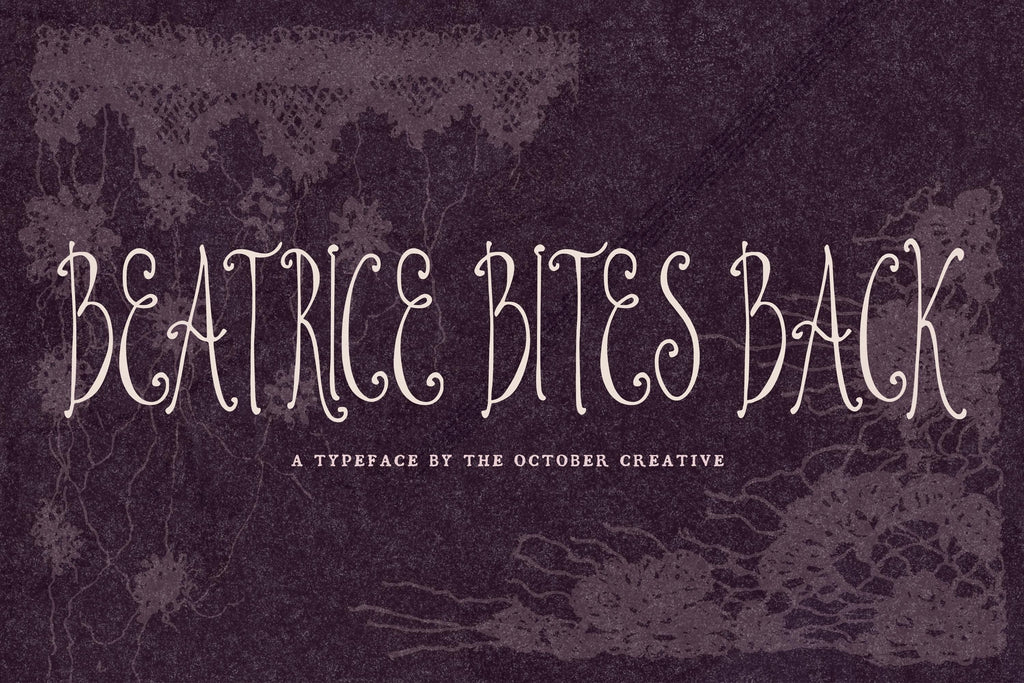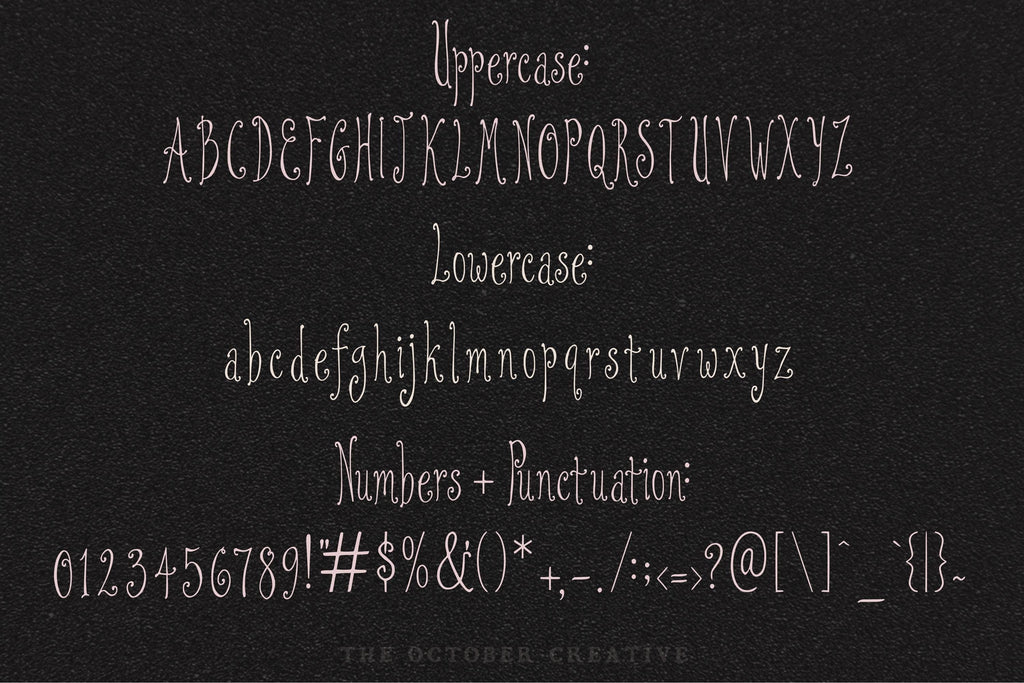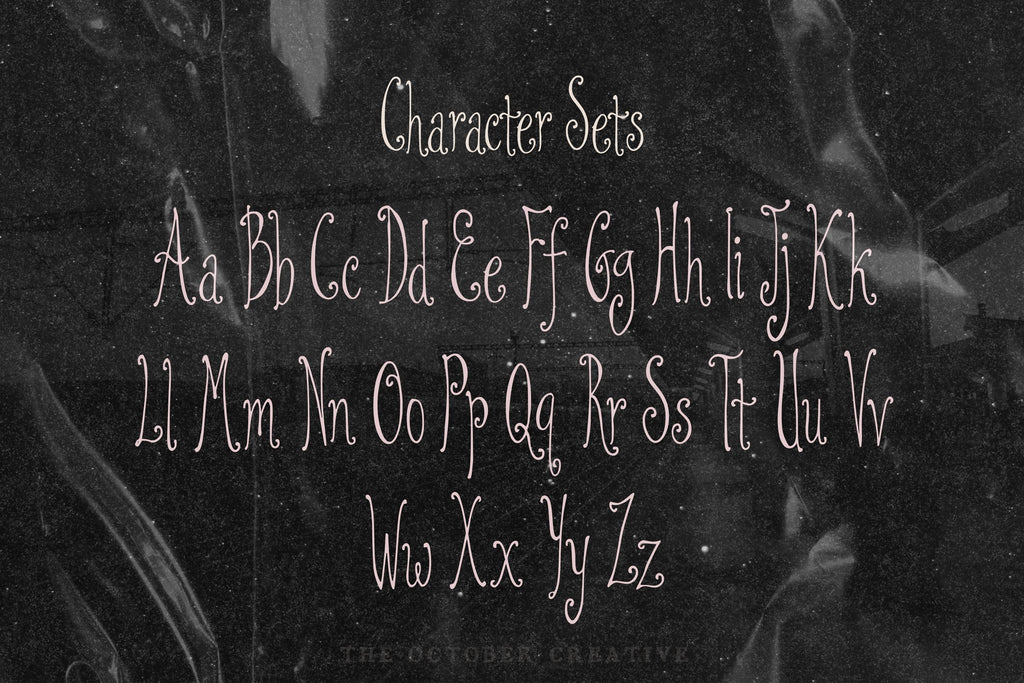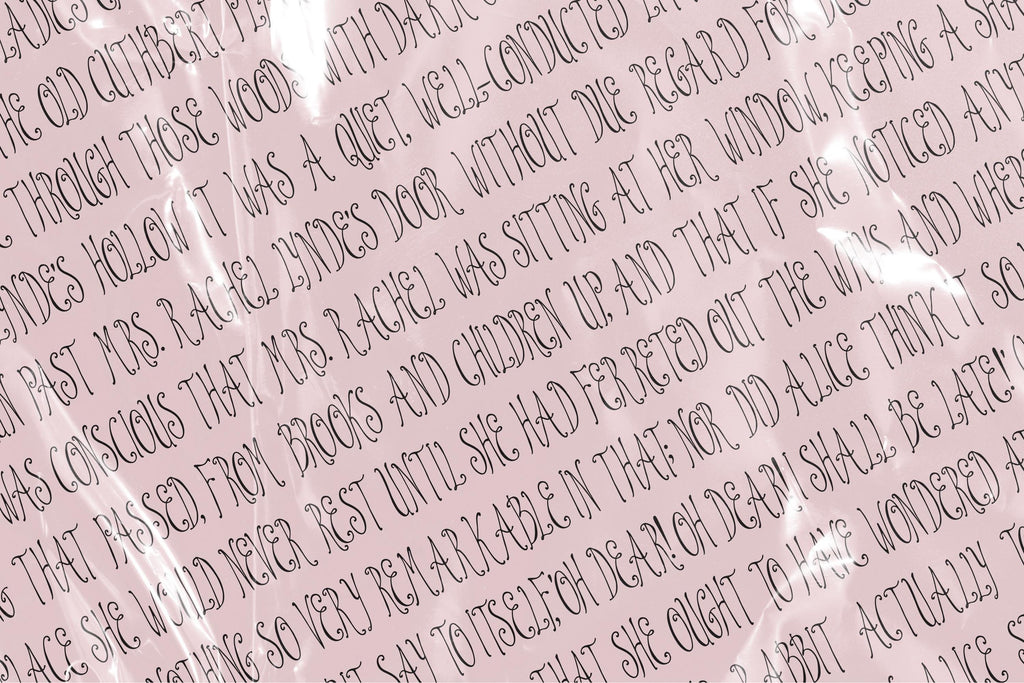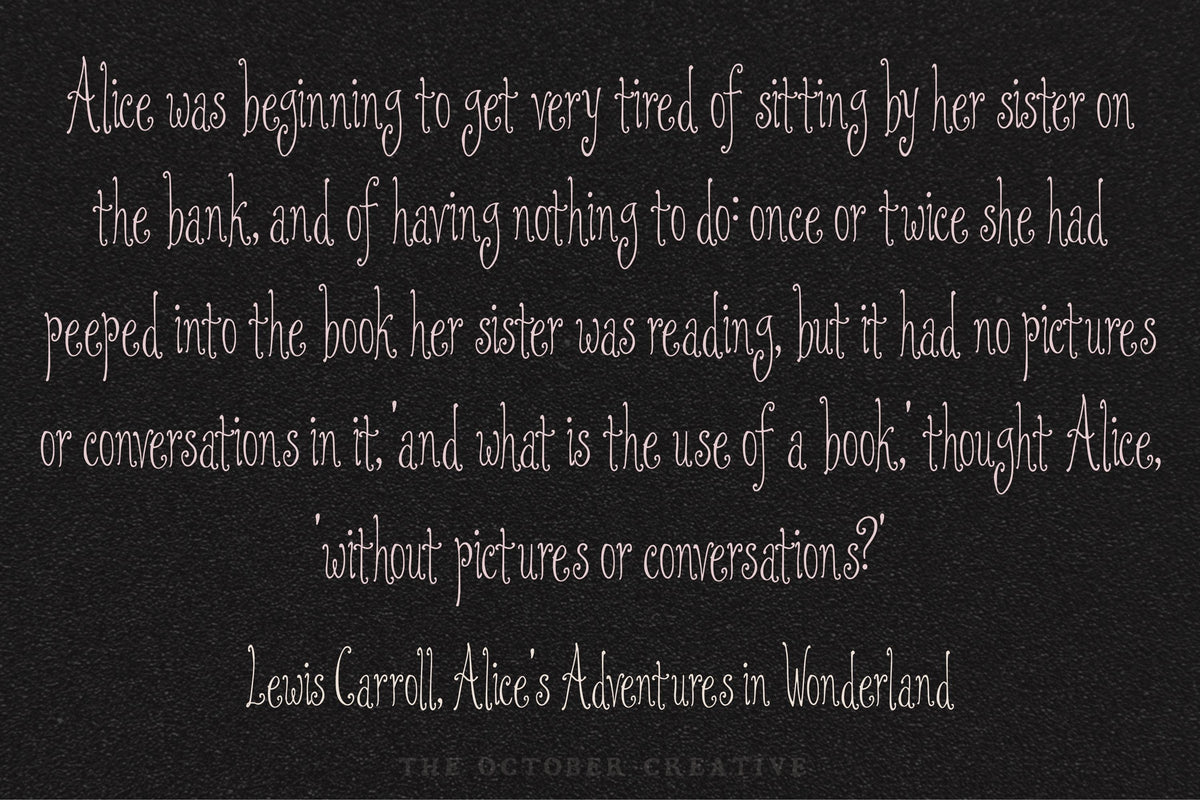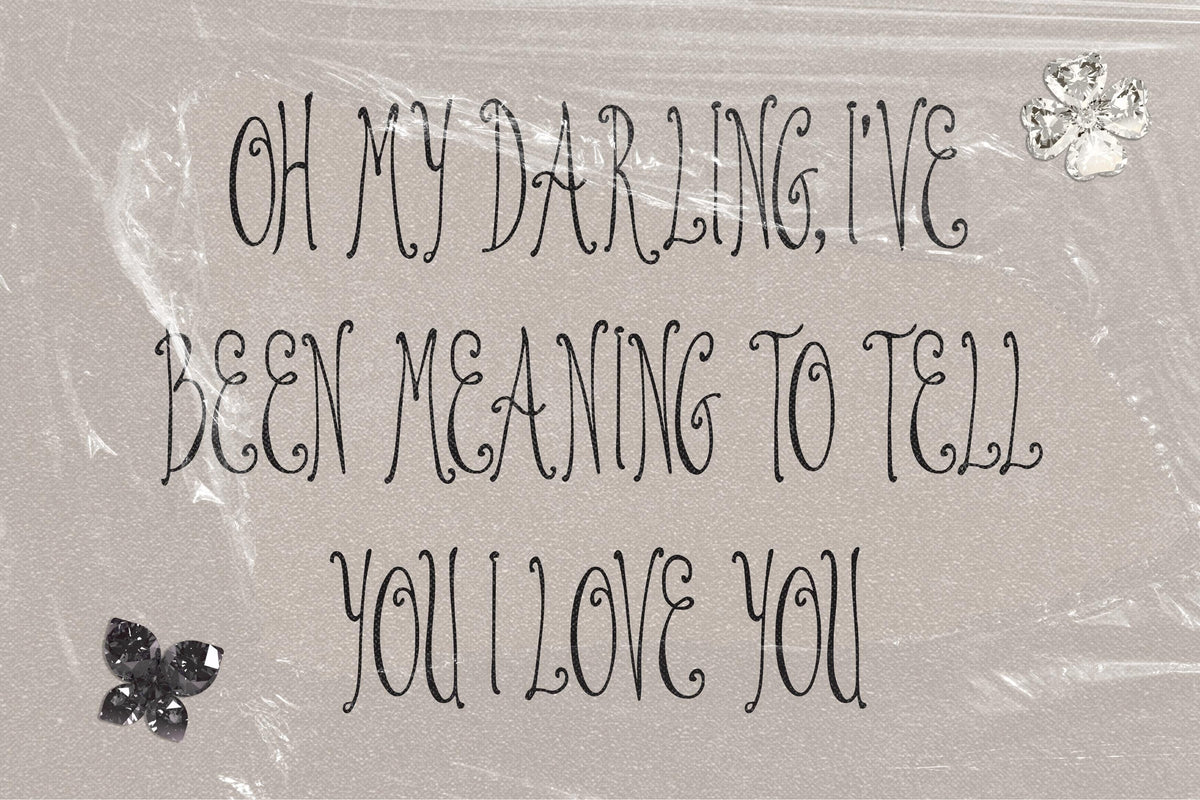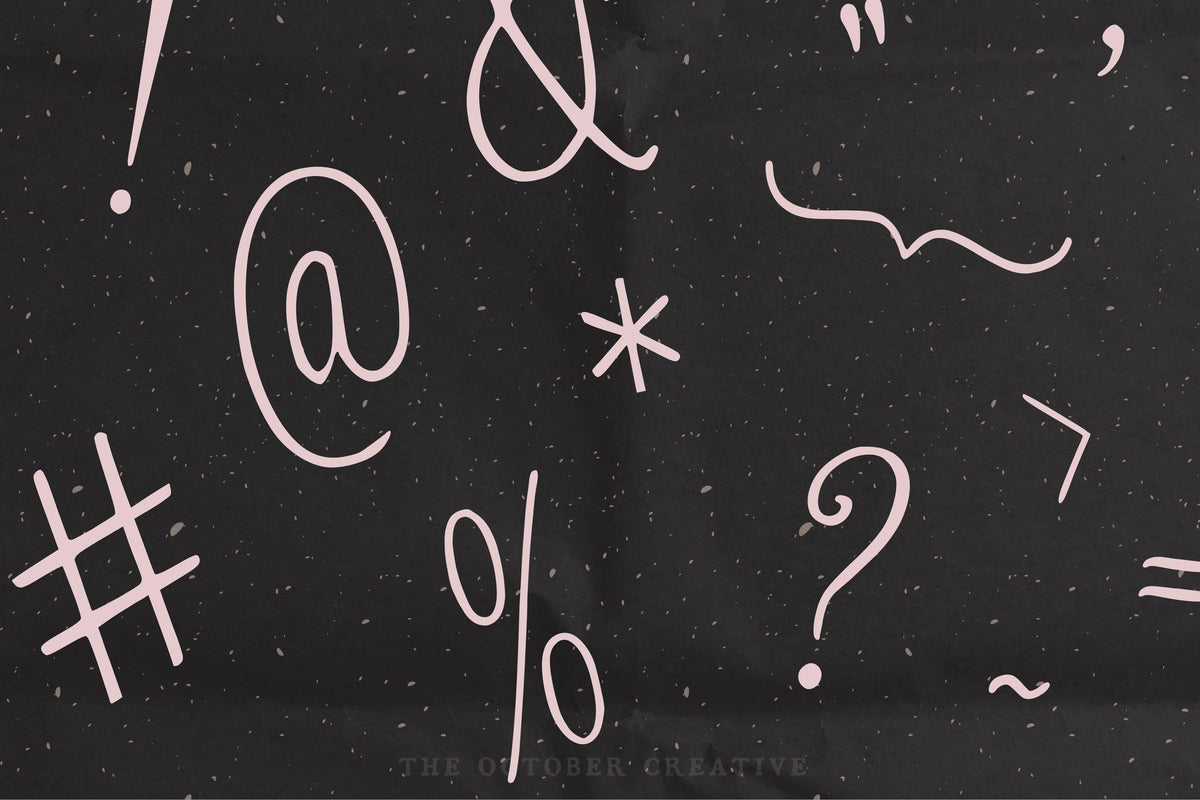
Beatrice Bites Back Font
Beatrice Bites Back has wonderfully tall, slender letters that make a book title feel a little more mysterious. With fine lines and pointed tops, it's a lovely choice for dramatic covers, invitations, and posters that could use a touch of trouble.